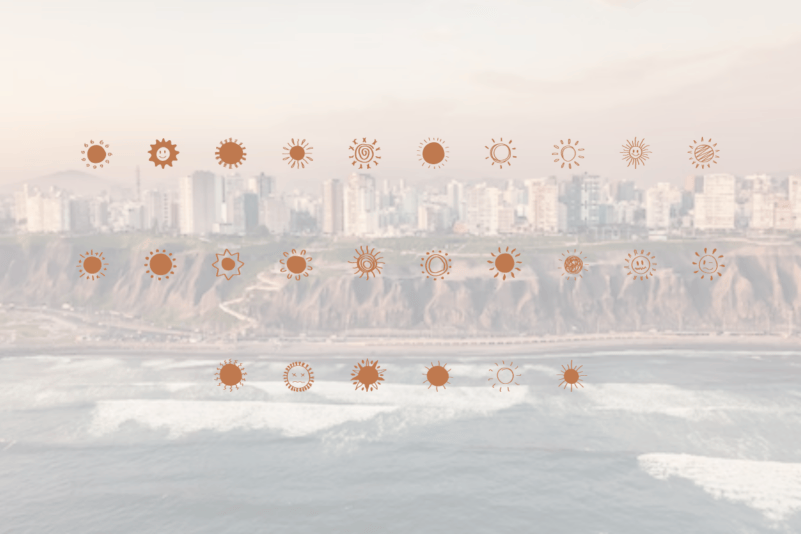
RetroSun Display Font
RetroSun Display Font is a dingbat font containing upper and lower case glyphs, Retro Sun dingbat font is suitable for decorative fonts, children’s books, stickers, and book covers.